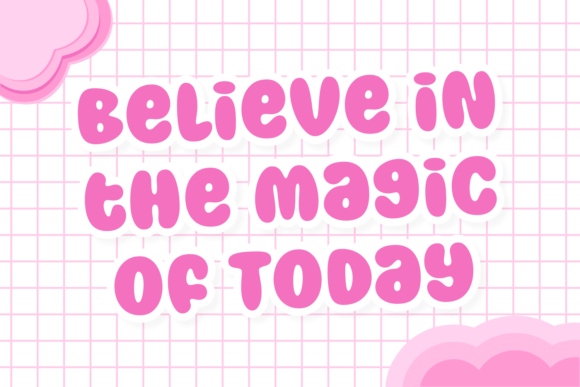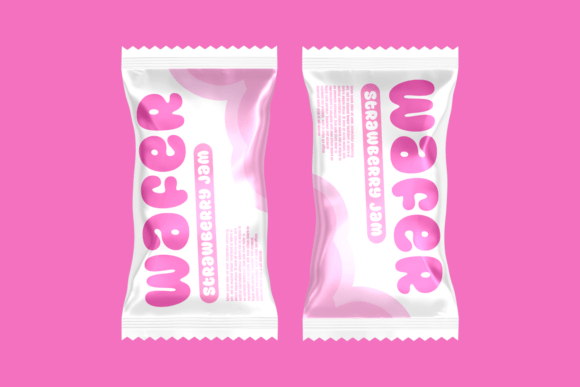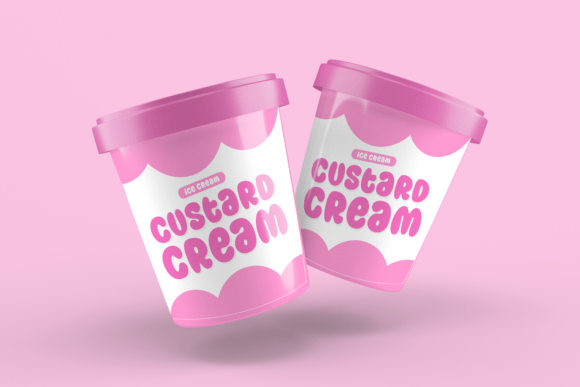
Introduction to Playing Bubbles Font
“Playing Bubbles” is your go-to choice when you need to make a statement with typography that’s as fun as it is versatile.
It’s a display font that’s playful and bubbly, harking back to the carefree days of cartoons and comic books Its chunky, bold stylings exude a groovy and retro vibe that’s right on trend and perfect for a range of seasonal designs.
Key Features of Playing Bubbles Font